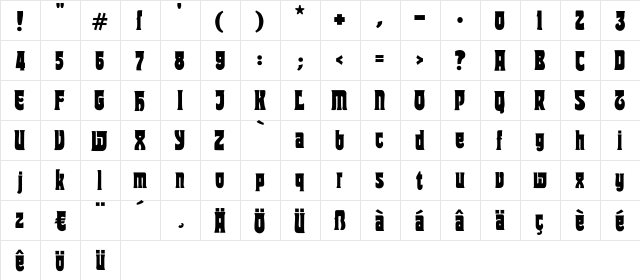
TipTop Regular
Design Context for TipTop Typeface
TipTop is a composed and adaptable typeface that performs quietly and consistently across a wide range of design contexts.